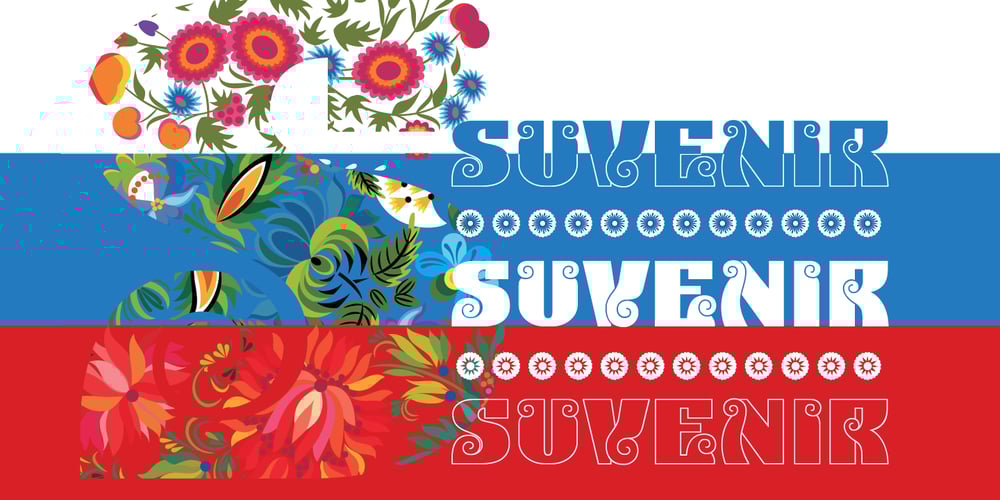
Suvenir Rus
Suvenir Rus font
Suvenir Rus Font Family was designed by Chekulaev Alexey and published by ParaType. Suvenir Rus contains 2 styles and family package options. The typeface was designed by Alexey Chekulaev inspired by artwork of Grigory Klikushin.